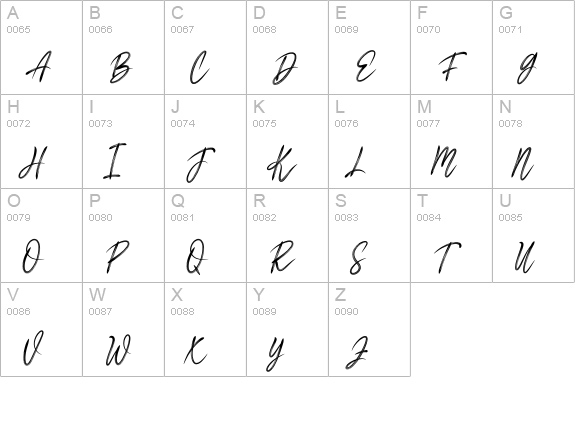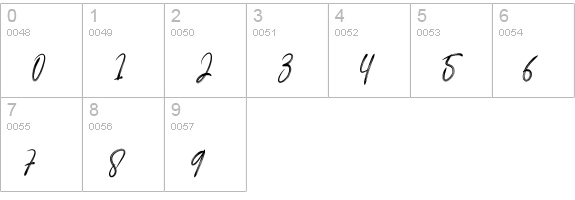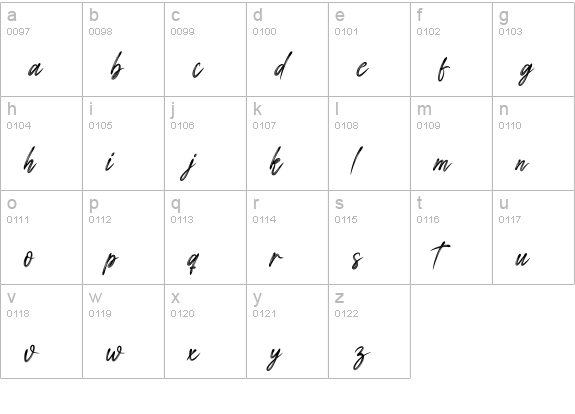
Stay In Villa Font Details
Stay In Villa is a free for personal use font in the Script > Handwritten category, designed by scratchones. It has been downloaded 35 times and is available for Windows, Mac and Linux.
Stay In Villa font is a beautifully crafted typeface that exudes elegance and sophistication. With its graceful curves and stylish flourishes, this font is perfect for adding a touch of luxury to your design projects. Whether you are working on invitations, branding, or any other creative endeavor, Stay In Villa font will elevate your work to the next level.